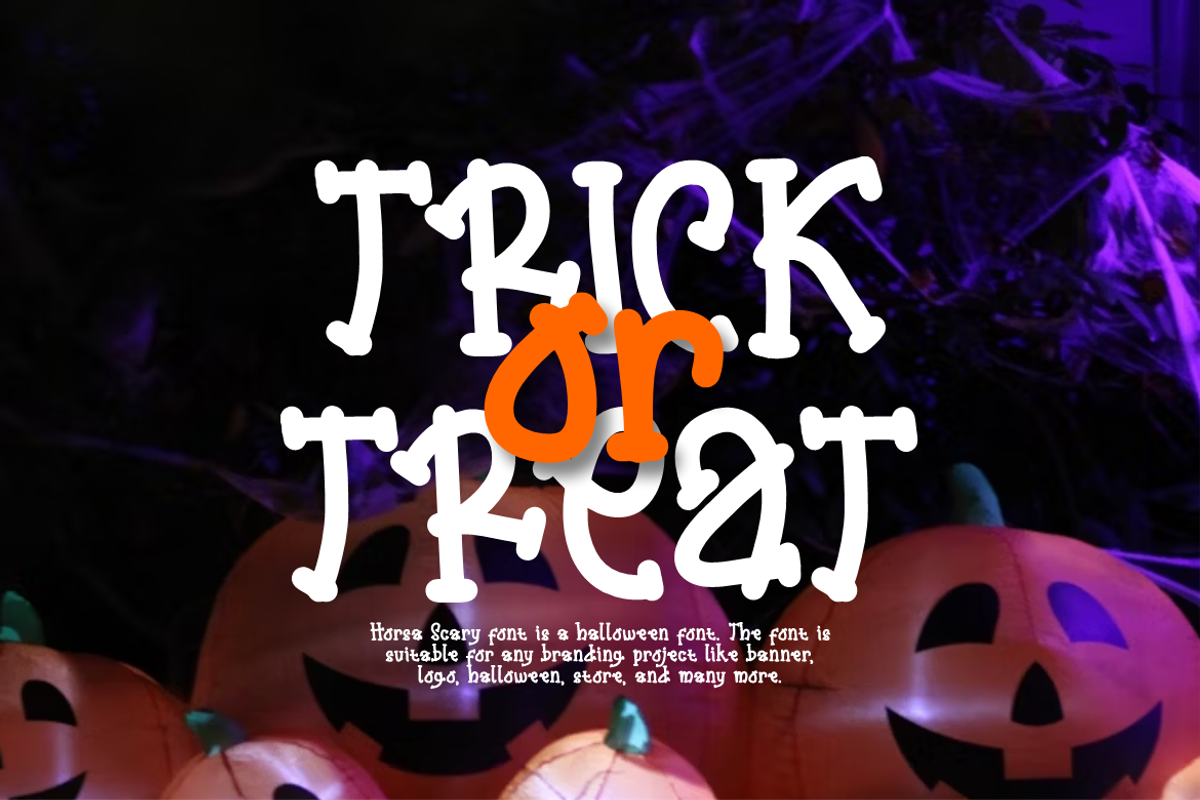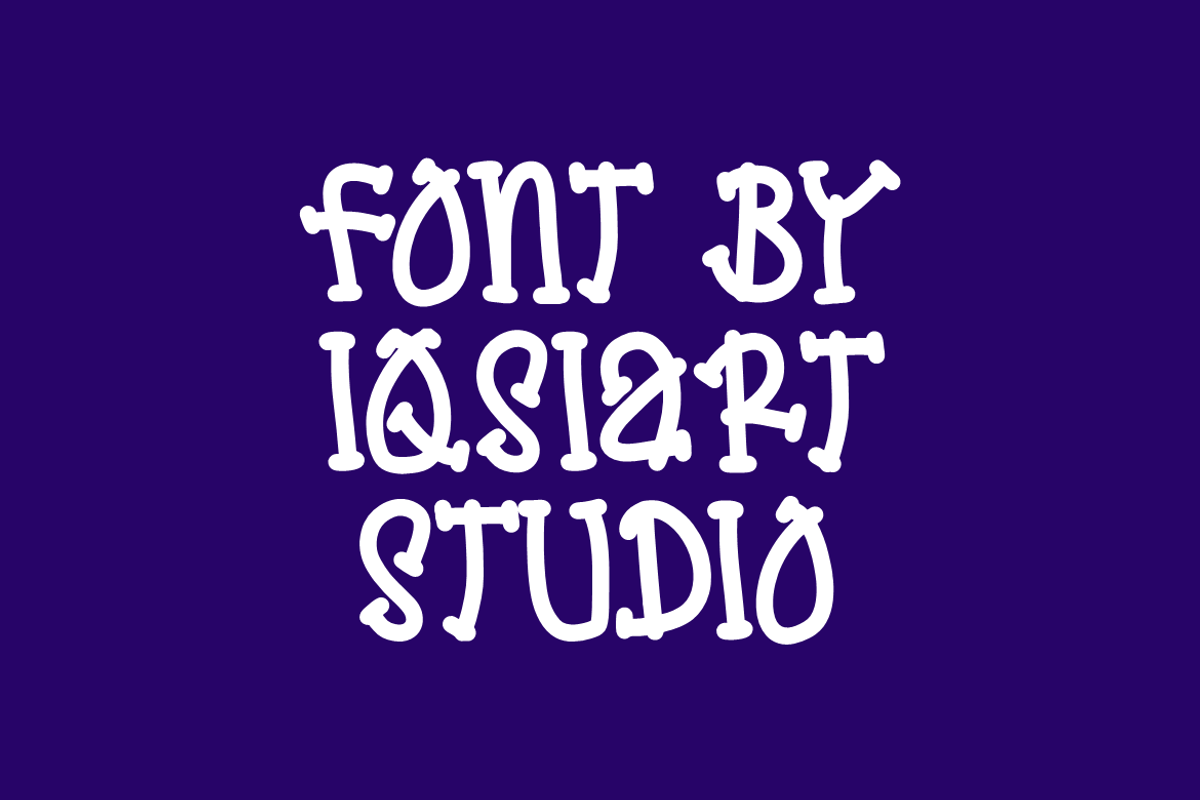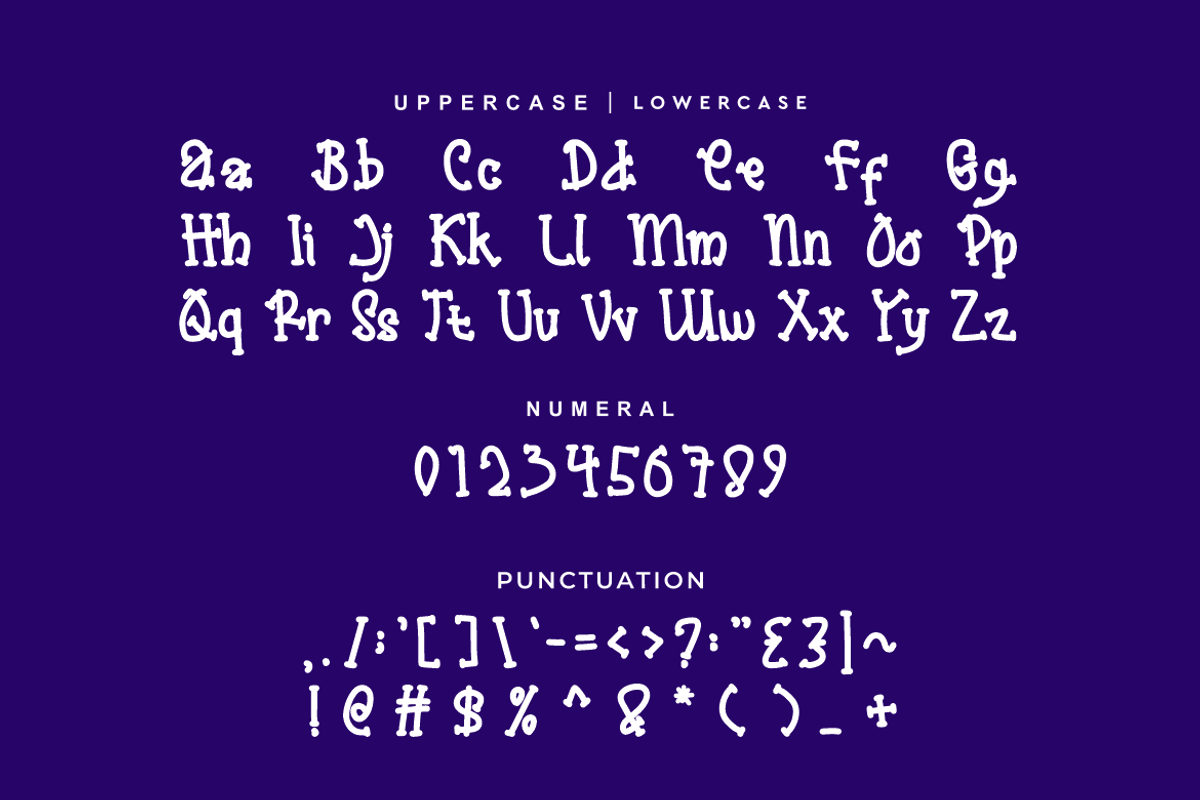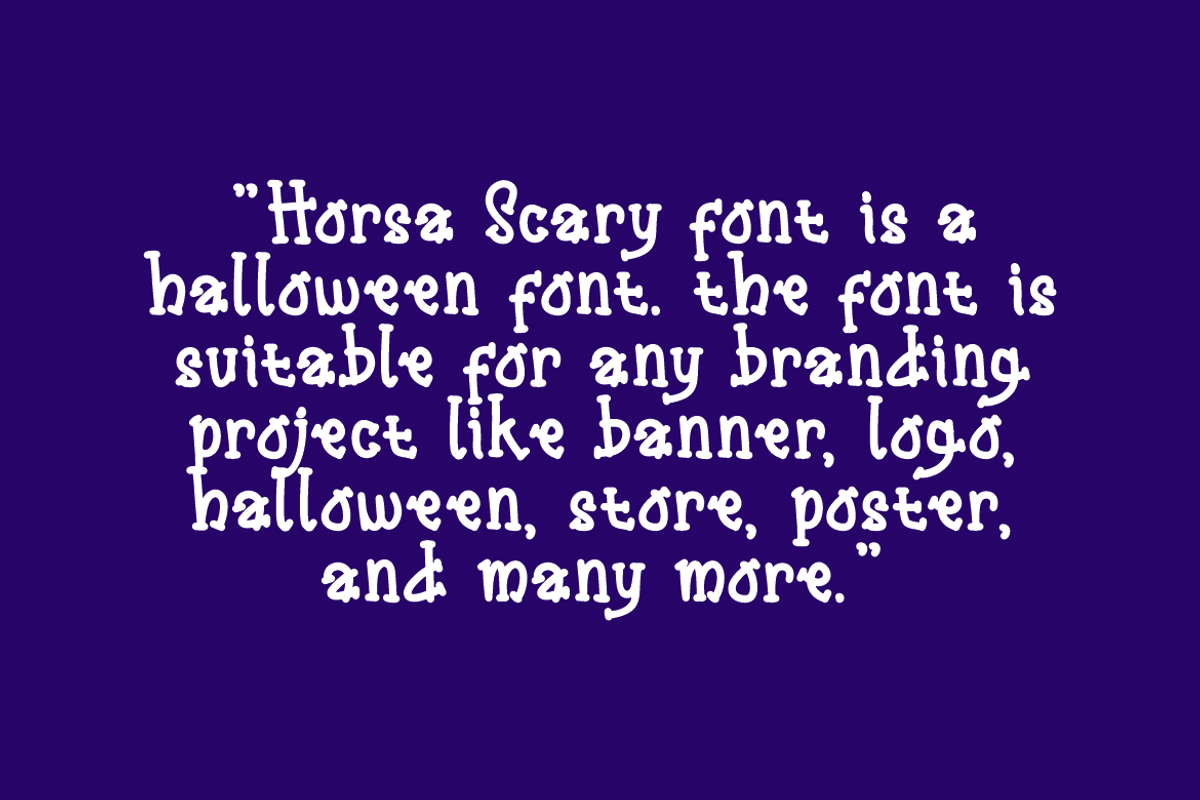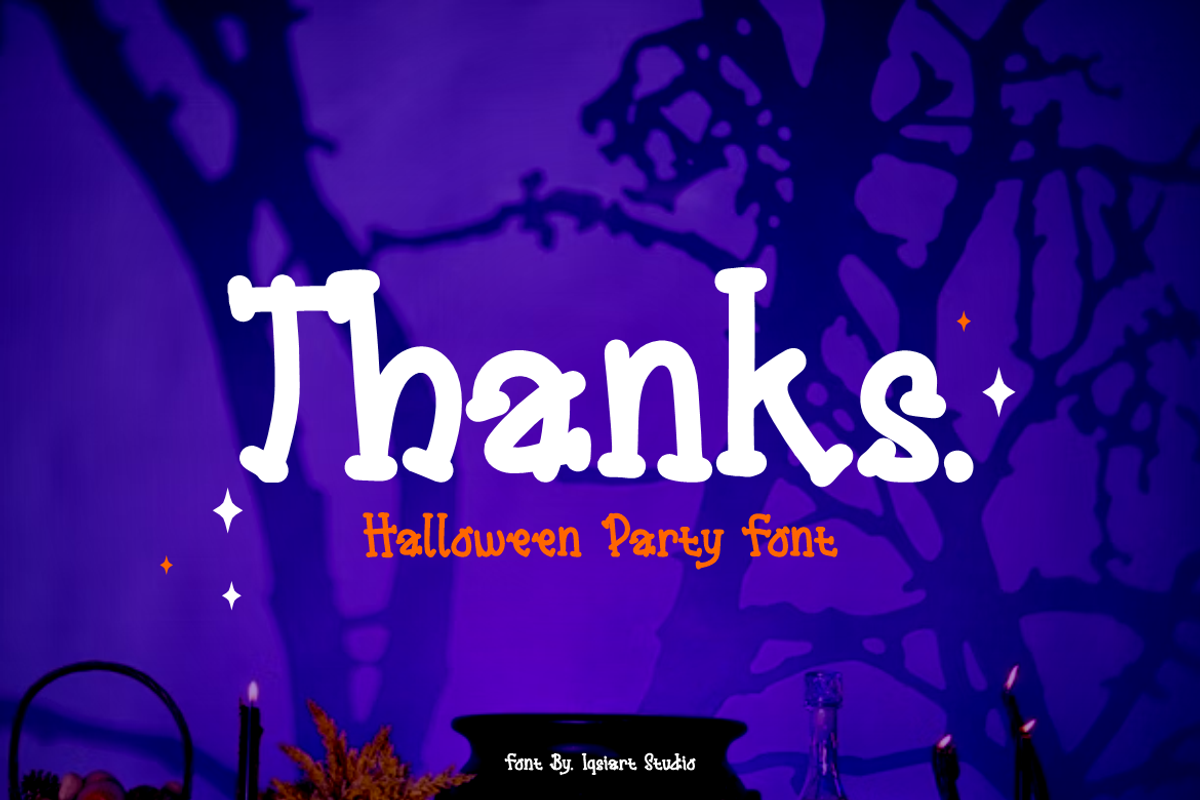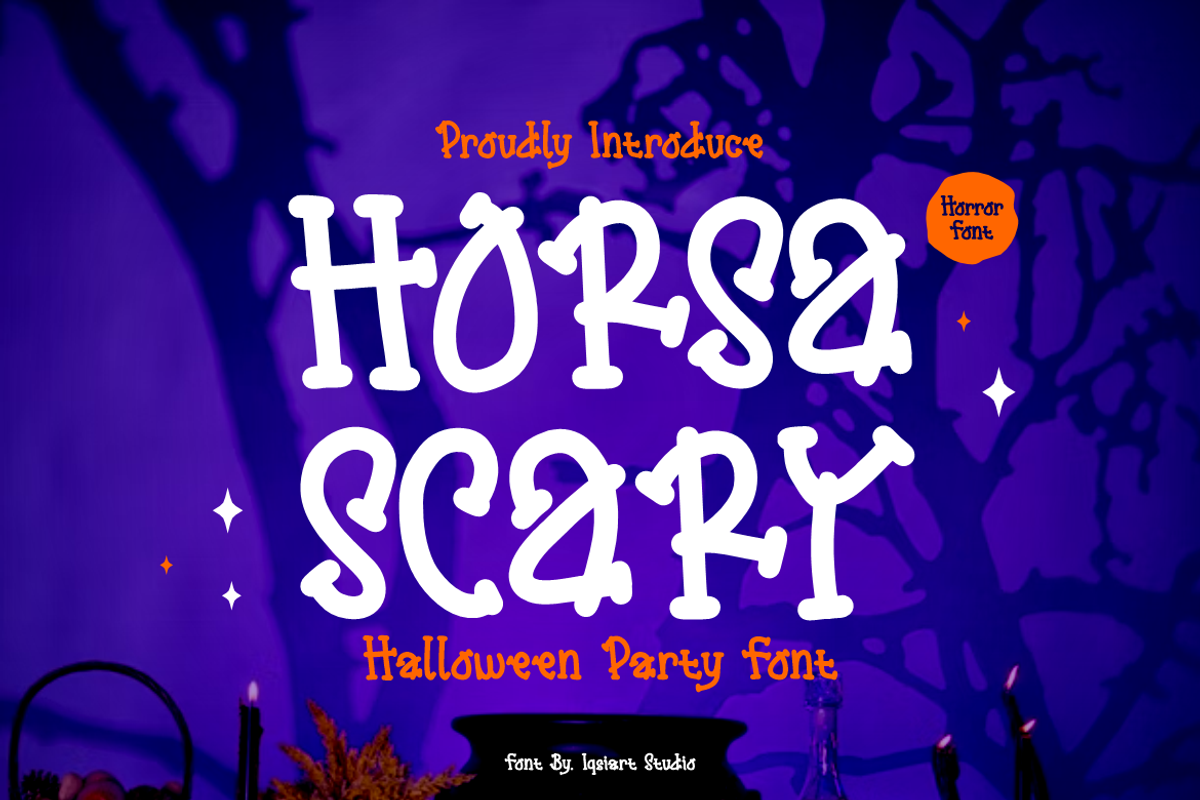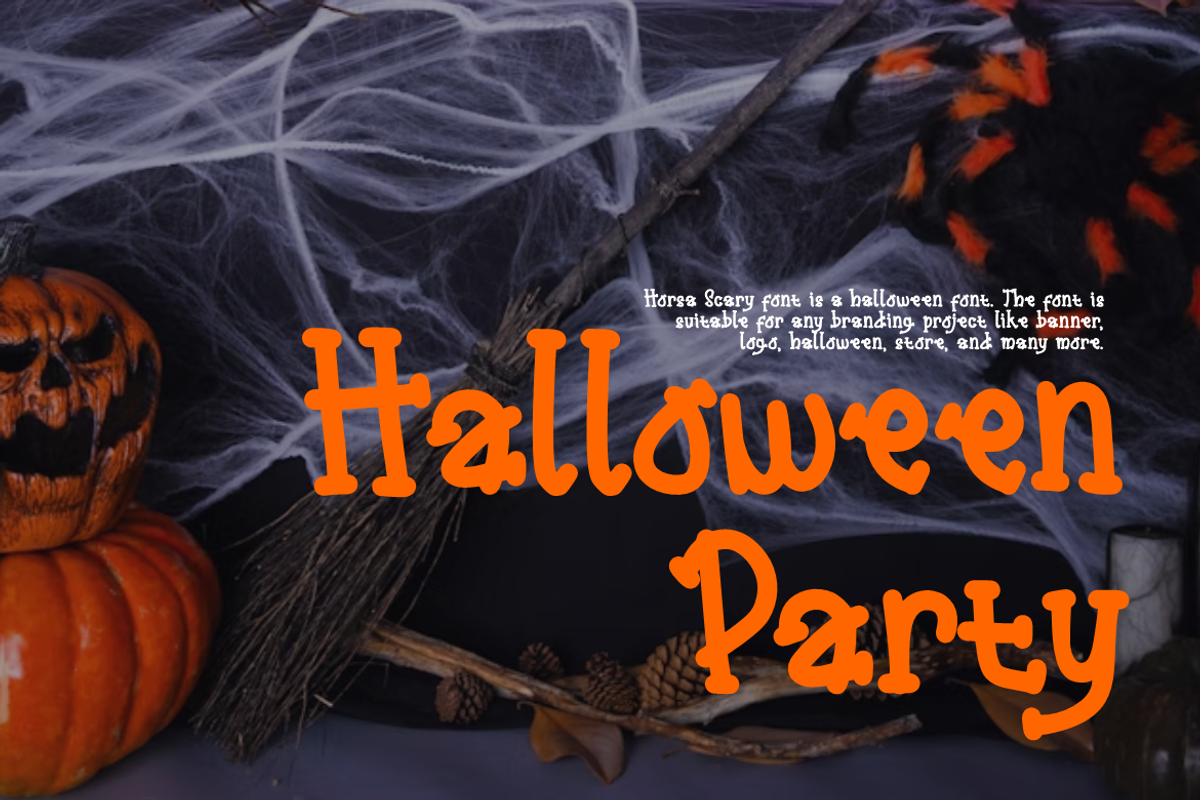
Horsa Scary - Halloween Font
Horsa Scary Font is a best and authentic display font. This font can be used for your various needs. We provide various themes and font styles. visit our profile to get a wide variety of themes and different font styles you need.